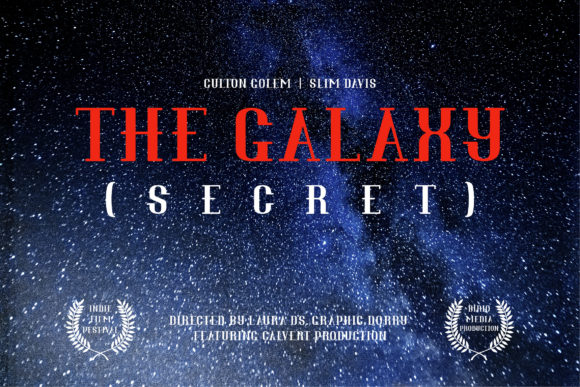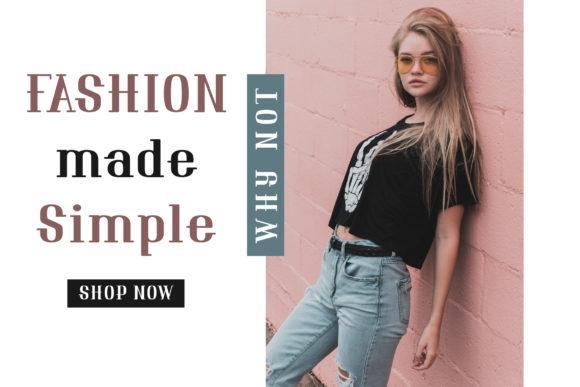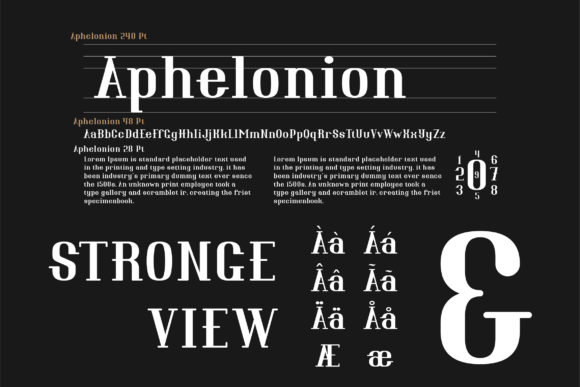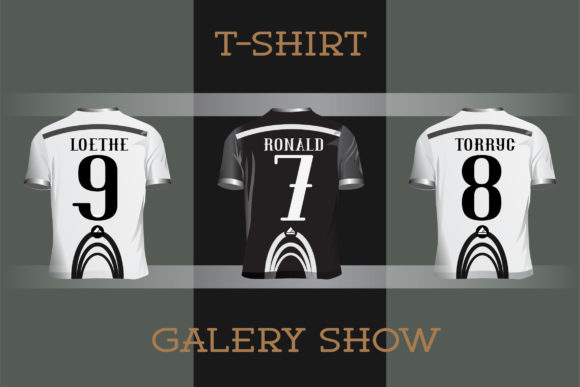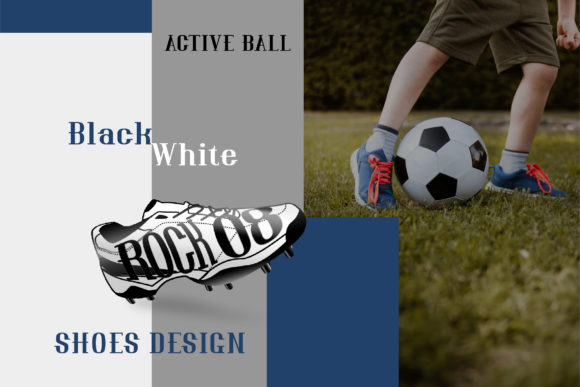
Discover the Elegance of Aphelonion Font: Elevate Your Designs with a Simple yet Sophisticated Serif Font
In the vast universe of typography, finding the perfect font that balances simplicity, elegance, and versatility can be a daunting task. However, for designers and crafters looking for a typeface that can seamlessly integrate into a wide array of projects while adding a touch of sophistication, Aphelonion Font emerges as an excellent choice. Aphelonion is a simple and neat serif font that has been making waves in the design community for its readability, aesthetic appeal, and adaptability.
The Characteristics of Aphelonion Font
Aphelonion Font is characterized by its clean lines, classic serif structure, and an overall minimalist design. This font strikes the perfect balance between traditional typography and modern simplicity, making it an ideal choice for a variety of design projects. Whether you’re working on a branding project, a website design, crafting a marketing material, or creating art, Aphelonion brings a level of elegance and professionalism that can significantly enhance your work.
One of the standout features of Aphelonion Font is its incredible versatility. It can easily be matched to an incredibly large set of projects, so add it to your creative ideas and notice how it makes them stand out! From editorial designs, such as newspapers and magazines, to digital interfaces, and even packaging, Aphelonion’s clear and readable letters ensure that your message is conveyed effectively and stylishly.
Why Choose Aphelonion Font?
There are several reasons why designers and crafters are gravitating towards Aphelonion Font:
- Readability: The well-defined serifs and balanced letter spacing make Aphelonion highly readable, even at smaller sizes.
- Elegance: The simple yet sophisticated design lends an air of elegance to any project.
- Flexibility: Aphelonion can be used in both digital and print media, making it a versatile tool in any designer’s arsenal.
- Timelessness: The classic design ensures that your work will remain relevant and stylish for years to come.
How to Use Aphelonion Font Effectively
To make the most out of Aphelonion Font, consider the following tips:
- Pair it with Sans-Serif Fonts: For a contrasting look, pair Aphelonion with sans-serif fonts. This combination works well for headings and body text.
- Experiment with Sizes: Play with different font sizes to create visual hierarchy and emphasize key points in your design.
- Utilize Font Weights: If Aphelonion comes in multiple weights, use them to add depth to your design. Bolder weights can be used for headings, while lighter weights for body text.
Aphelonion Font is more than just a typeface; it’s a design companion that can elevate your creative projects to new heights. Its blend of simplicity, elegance, and versatility makes it an invaluable resource for designers and crafters aiming to create visually appealing and effective designs. Whether you’re a seasoned professional or a hobbyist, Aphelonion Font is sure to become a staple in your design toolkit. So, add it to your creative ideas and discover how it can make your projects stand out in a crowded design landscape.
Embrace the elegance and versatility of Aphelonion Font in your next project. Experience firsthand how this simple yet sophisticated serif font can transform your designs.